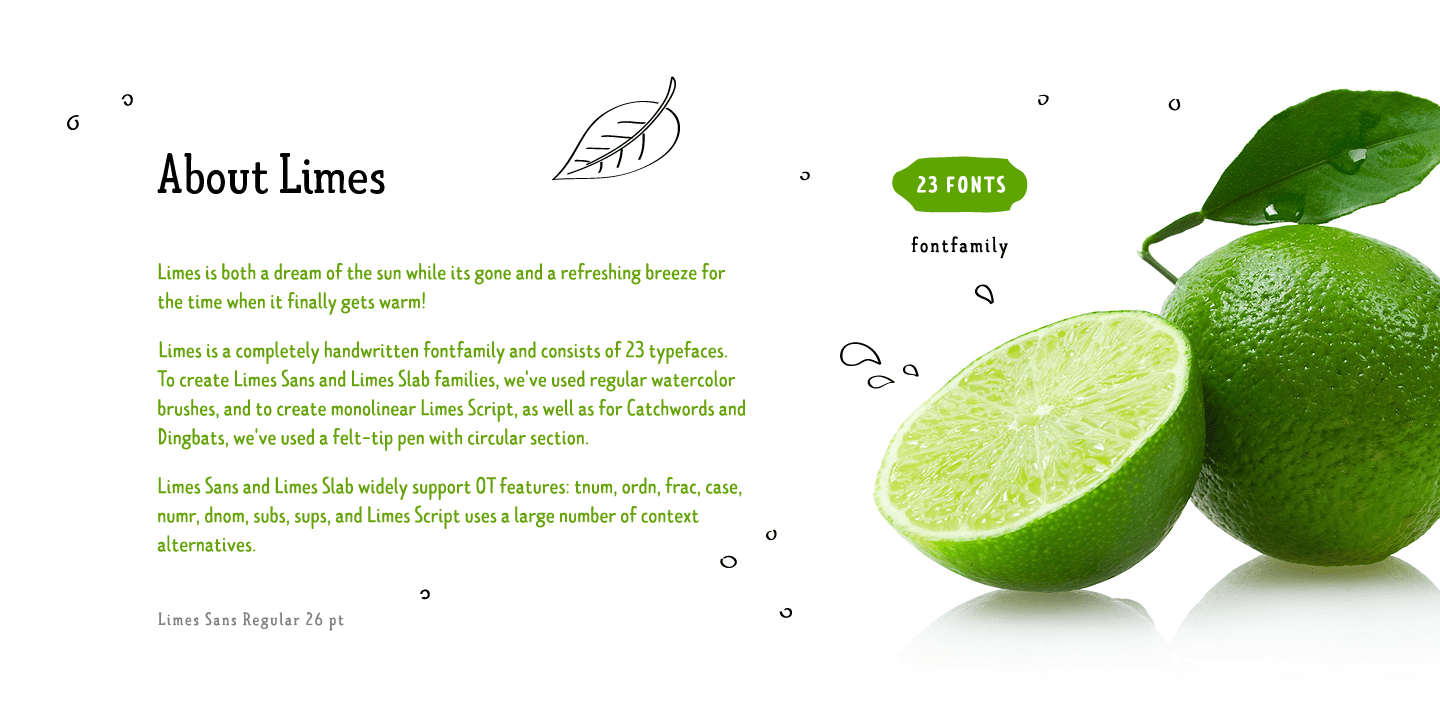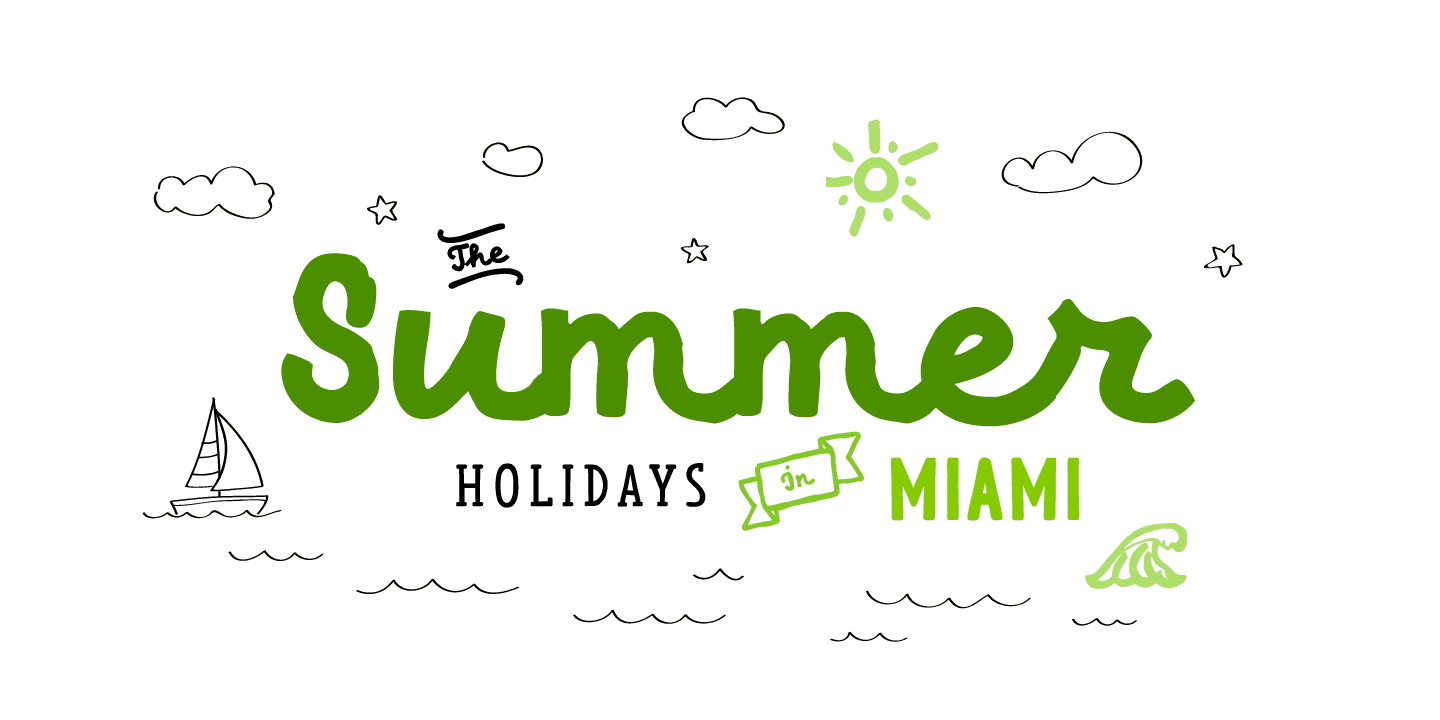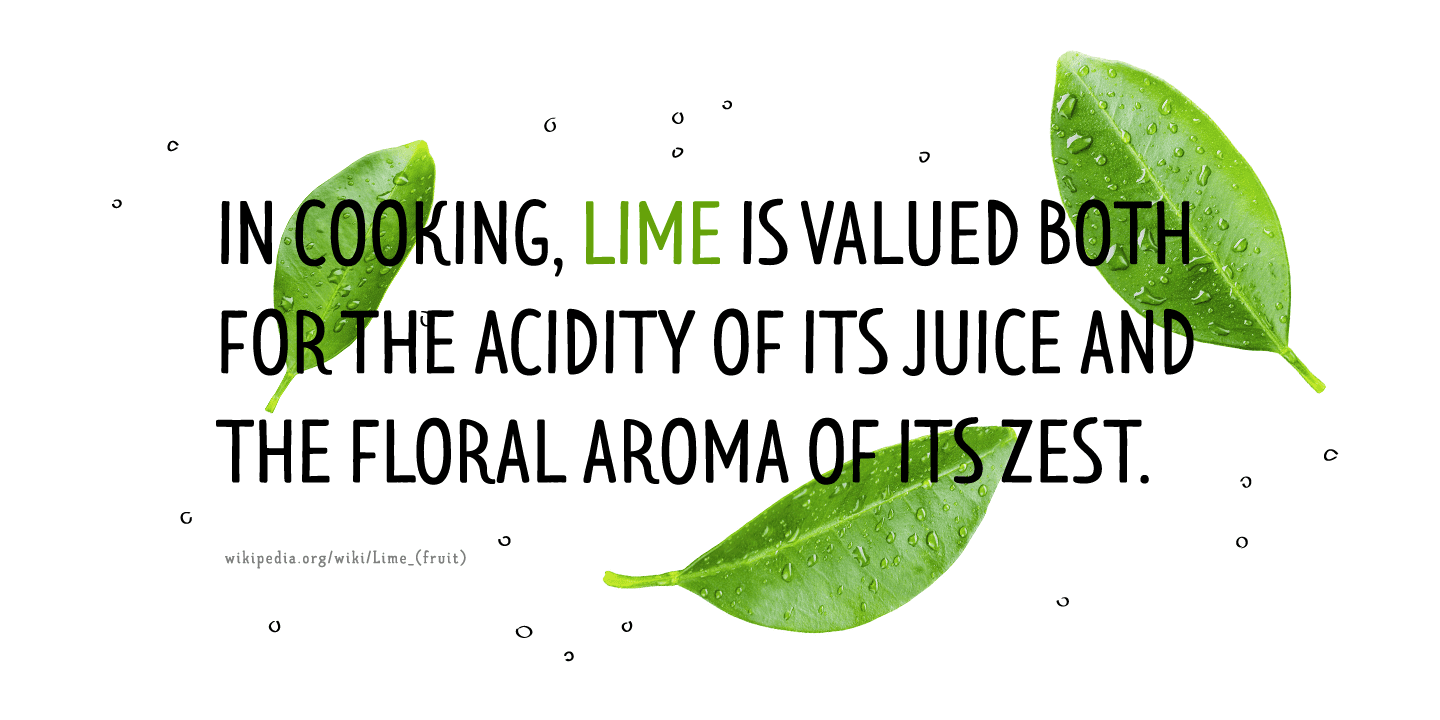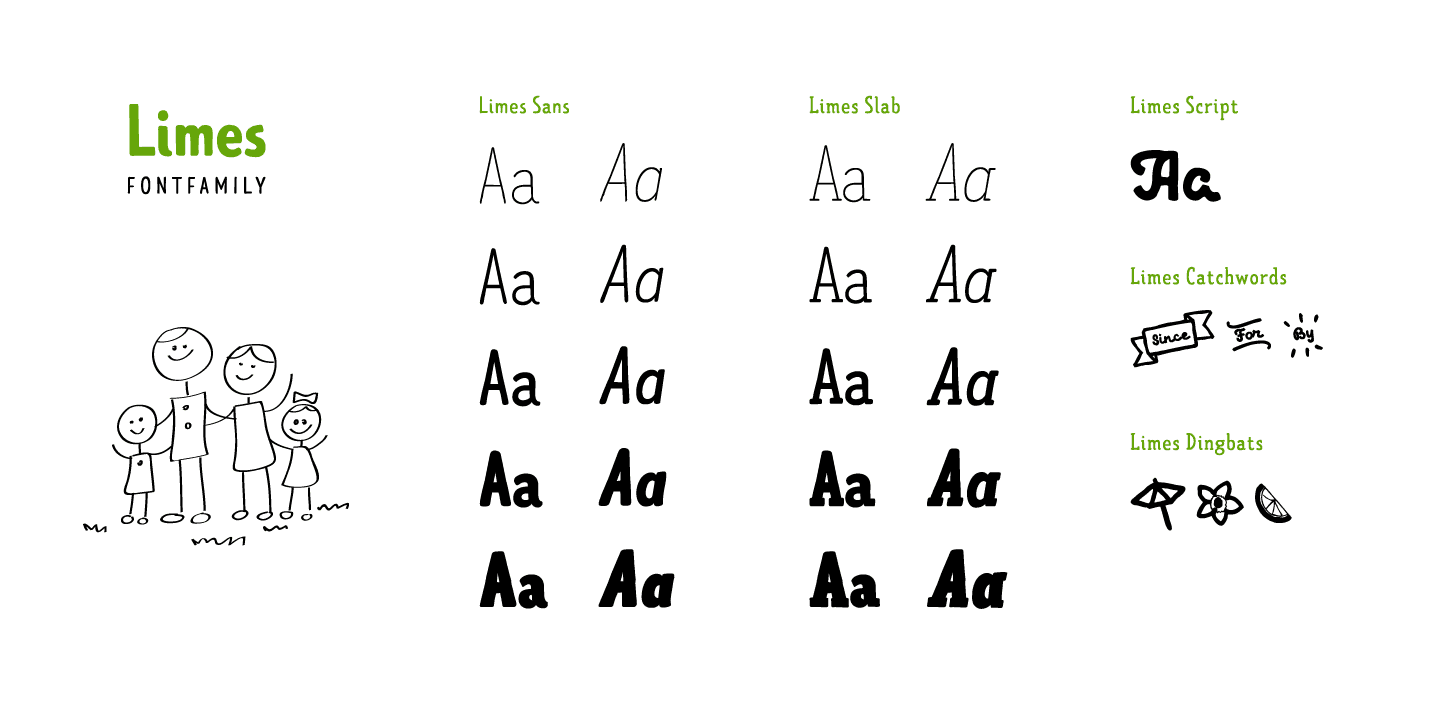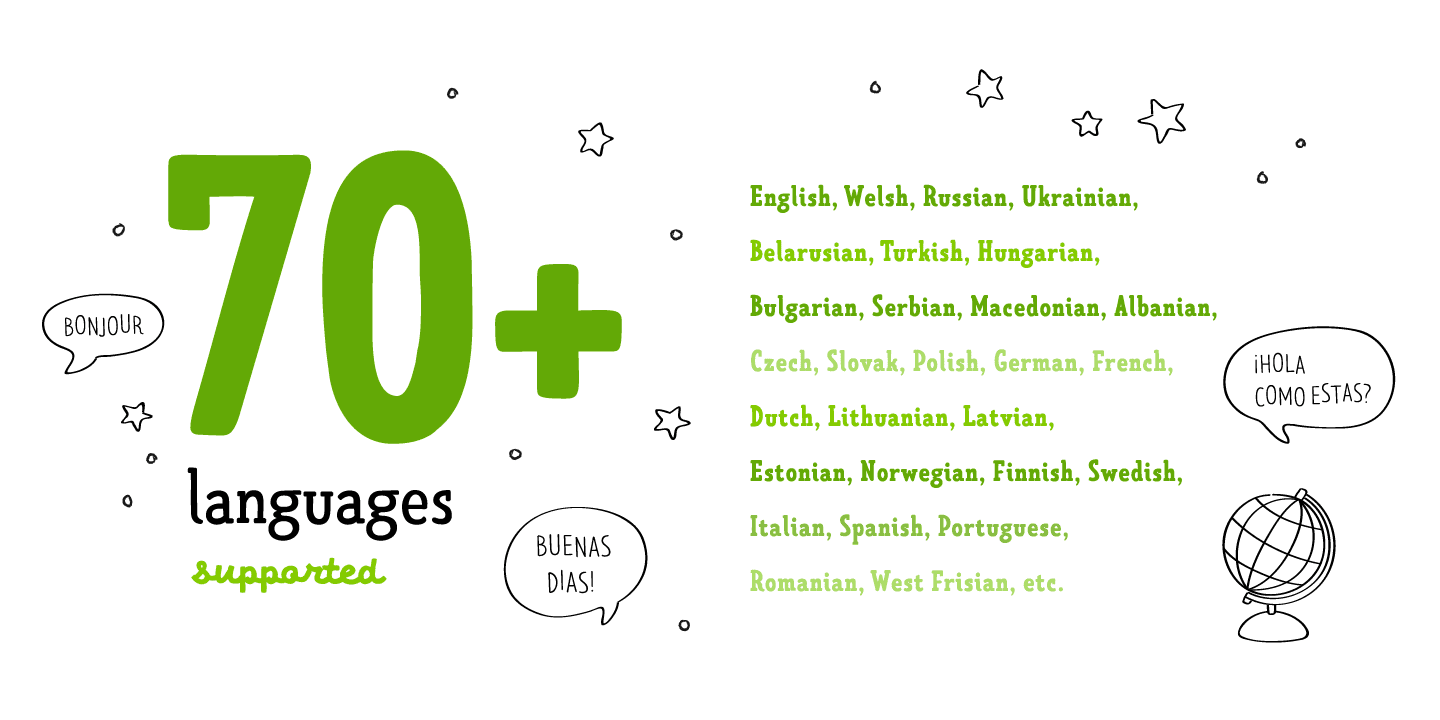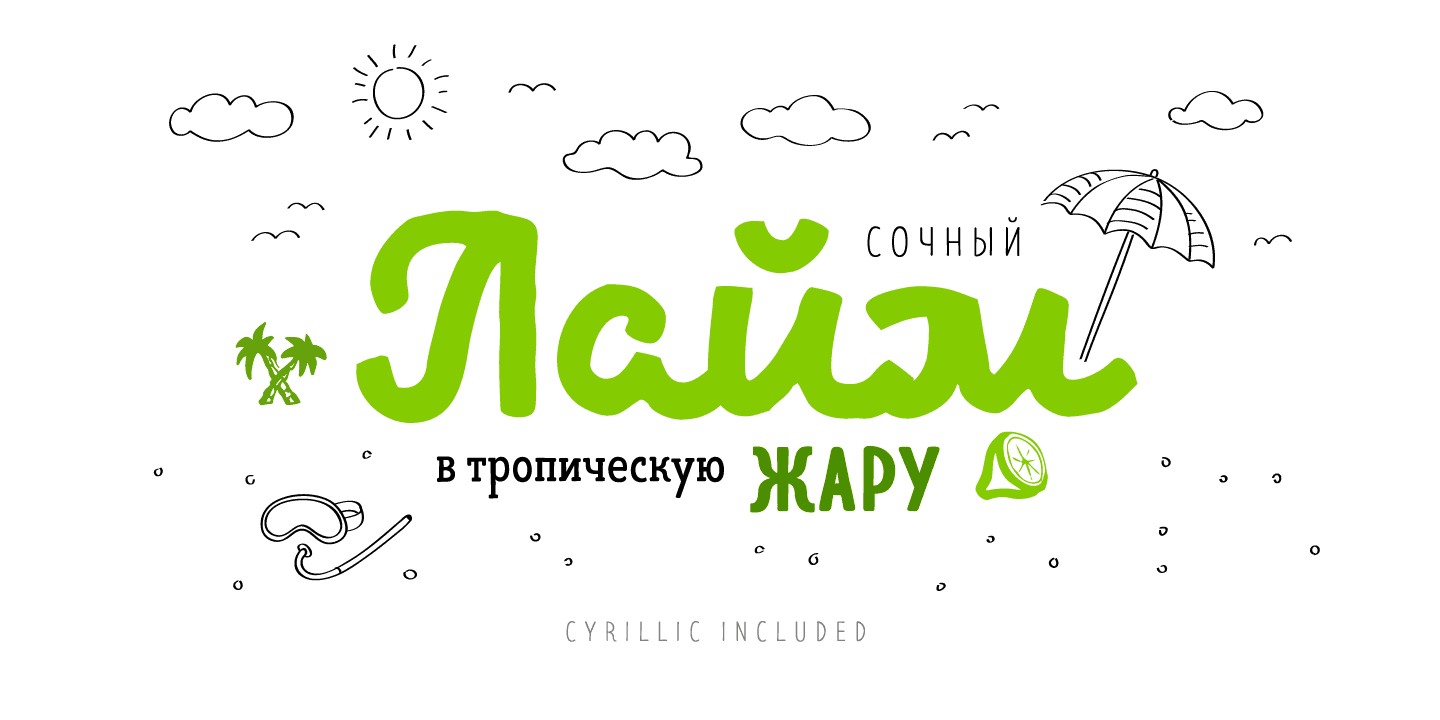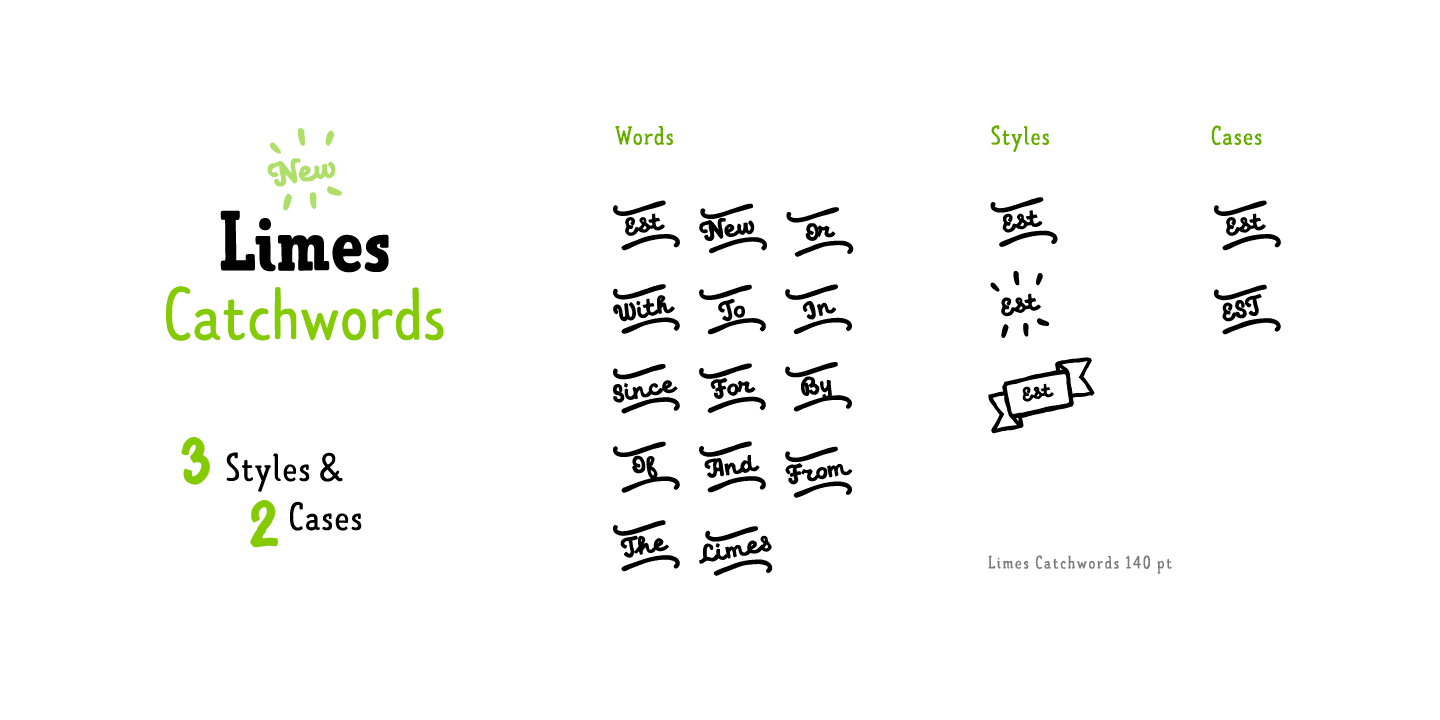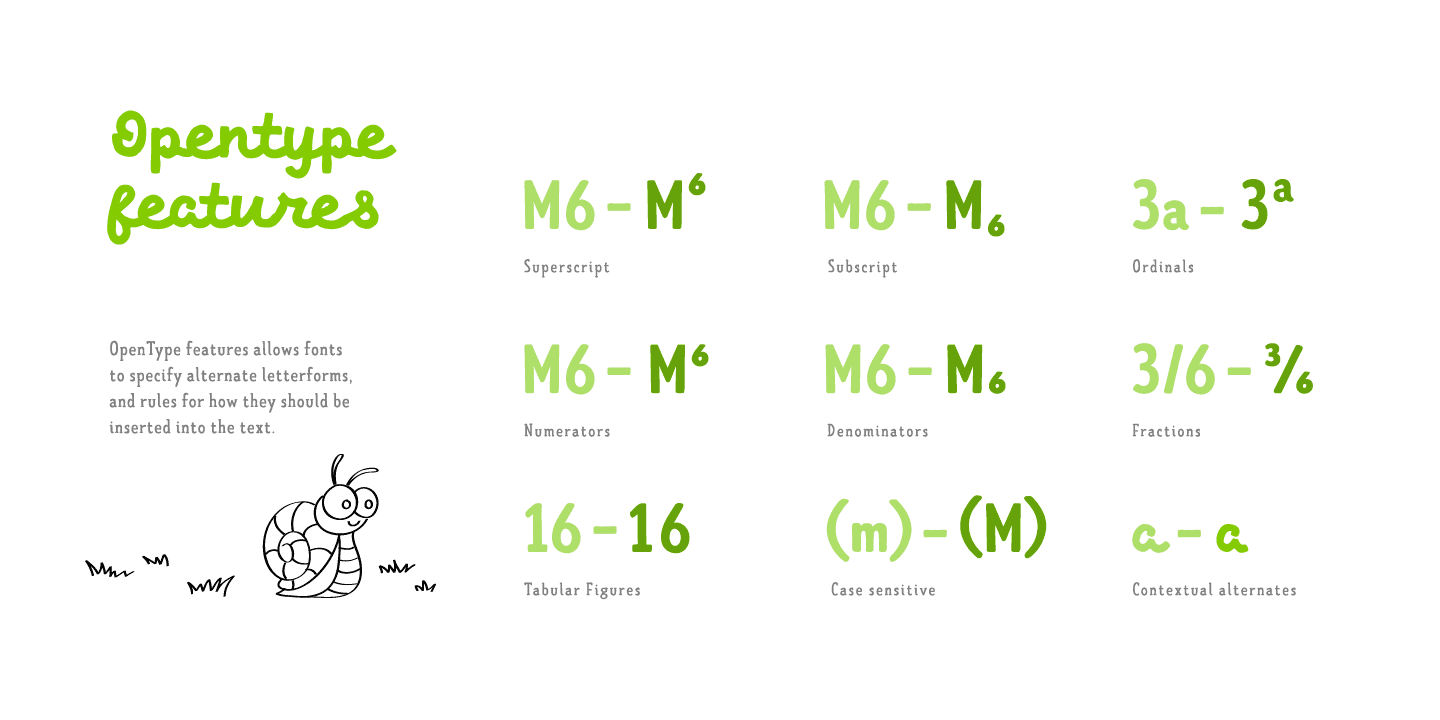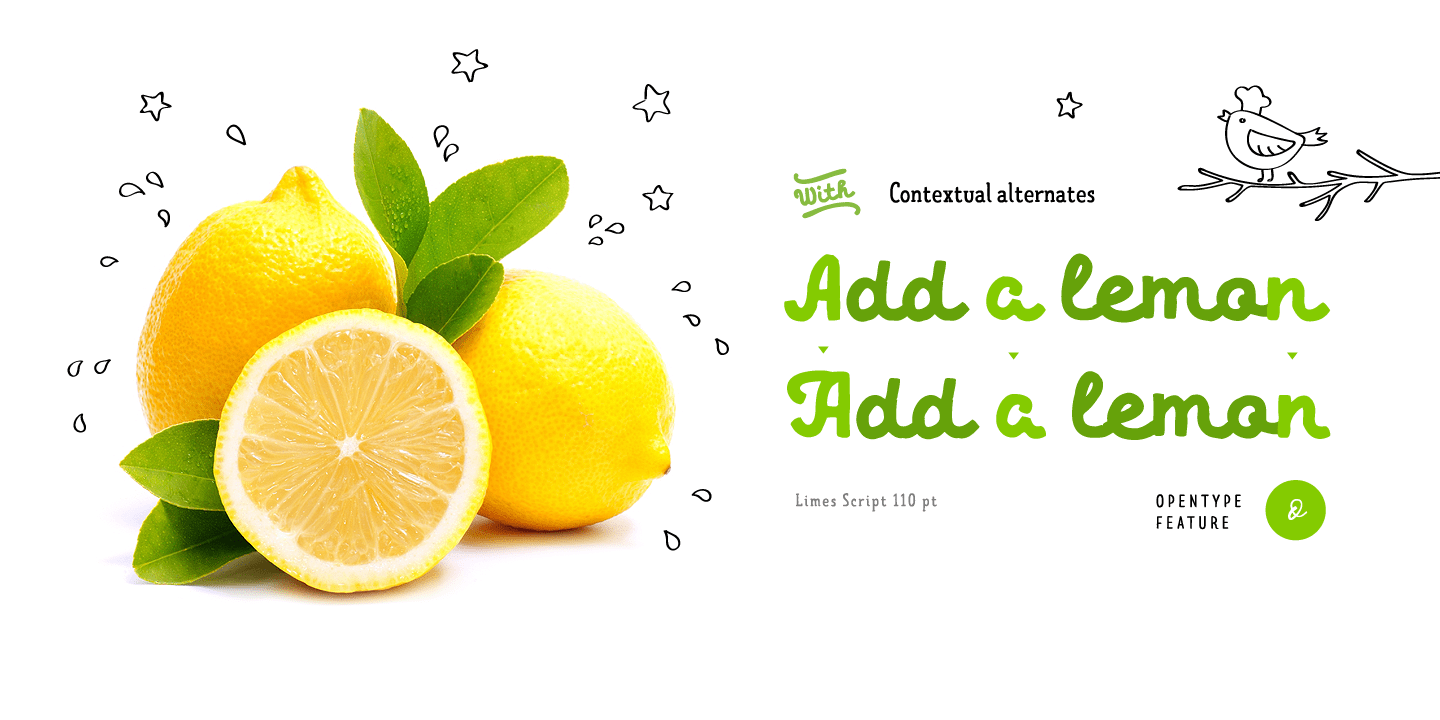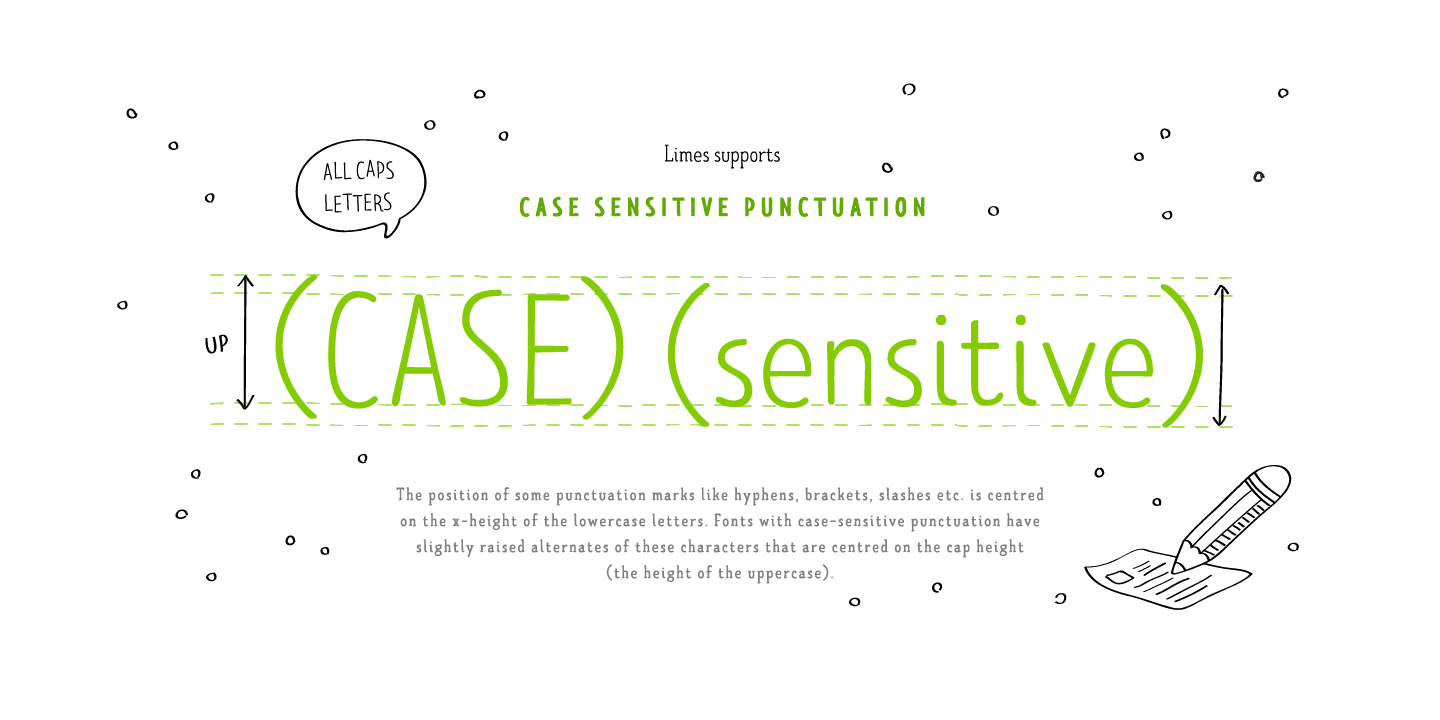
TT Limes Family (23 fonts)
TT Limes is a completely handwritten font family and consists of 23 typefaces. To create Limes Sans and Limes Slab families, we've used regular watercolor brushes, and to create monolinear Limes Script, as well as for Catchwords and Dingbats, we've used a felt-tip pen with circular section. Limes Sans and Limes Slabs fonts work perfectly together with Limes Script due to the general handwritten idea, as well as due to the widths contrast – despite its width, Limes Script mixes well with narrower opponents and ads a bit of human spontaneity into a general handwritten concept.
The TT Lime collection includes: Limes Sans (Thin, Light, Regular, Bold, Black & italics), Limes Slab (Thin, Light, Regular, Bold, Black & italics), Limes Script, Catchwords and Dingbats. Limes Sans and Limes Slab widely support OT features: tnum, ordn, frac, case, numr, dnom, subs, sups, and Limes Script uses a large number of context alternatives.